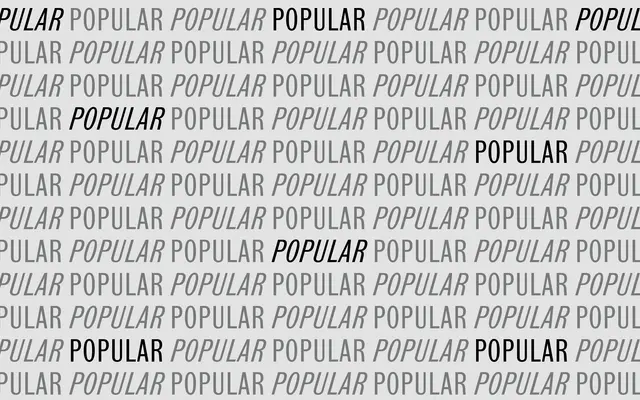
Popular specimen from A2-Type
A revival of Barnhart Bros. & Spindler's 1907 'Lining Gothic Number 111', expanded into a six-weight family with italics for contemporary headline and text use.
Drawn from a single-weight specimen in Barnhart Bros. & Spindler's No. 9 catalogue of 1907, the design retains the subtly contrasted strokes and naturally condensed proportions of its source while adding five further weights plus italics throughout. The unusual details of the original cuts survive into the revival, giving it an oddly contemporary feel that works at display sizes and in running text. A solid choice for editorial work that needs a period American gothic without slavish historicism.
Derived from Barnhart Bros. & Spindler's 'Lining Gothic Number 111' (1907), Popular belongs to the American gothic grotesque tradition, characterised by subtle stroke contrast and a naturally condensed construction.